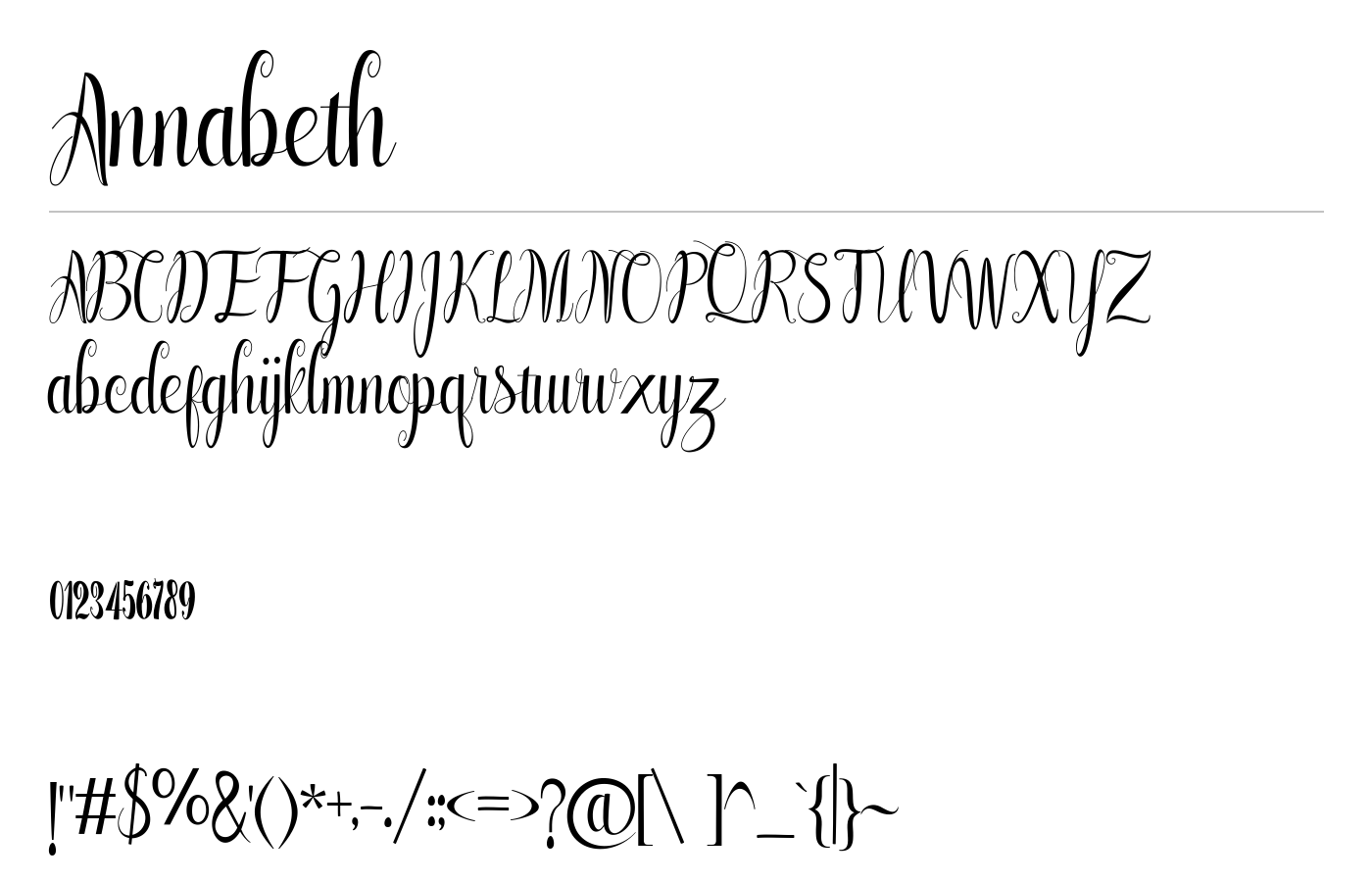
Annabeth is an elegant and decorative script font with tall, slender letterforms and playful, swirly accents that add a touch of whimsy. Its high contrast strokes and fluid curves give it a sophisticated yet approachable feel, making it ideal for invitations, branding, and artistic projects where a blend of beauty and personality is desired. This font shines best in display uses, bringing a graceful flair to headlines, logos, and packaging.
Annabeth Font
About Annabeth Font